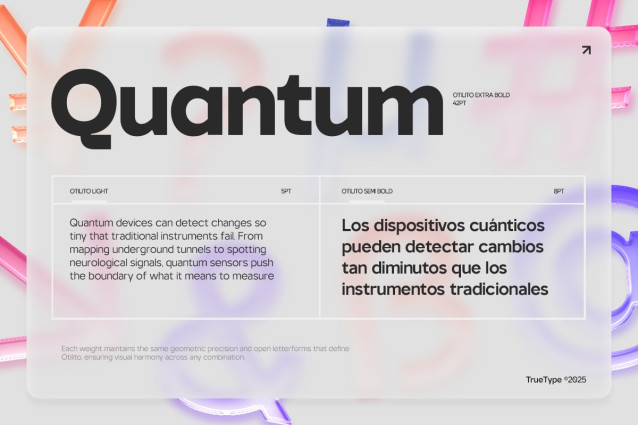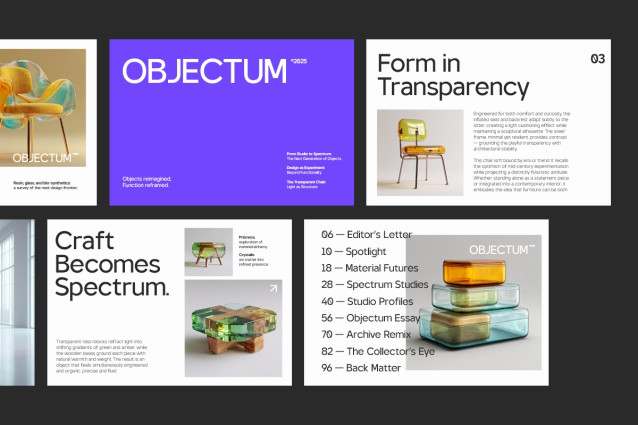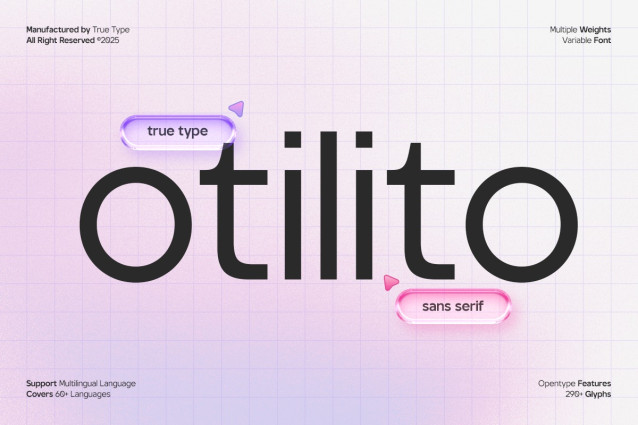
TRT Otilito Font
TRT Otilito Font is a modern sans serif typeface with semi-grotesque characteristics and a unique personality. Designed to be clean and functional, yet distinctive, it blends geometric balance with subtle quirks that give it charm and flexibility.It’s a highly usable font family, offering multiple weights and styles to support diverse design needs — from branding and editorial work to digital interfaces and packaging.Perfect for visual identities, headlines, logos, magazines, and interfaces, TT Otilito delivers clarity without sacrificing character. It’s a reliable tool for designers seeking modern aesthetics with a touch of originality.At True Type, we design fonts that are honest, functional, and expressive — crafted to help your message connect clearly and confidently.